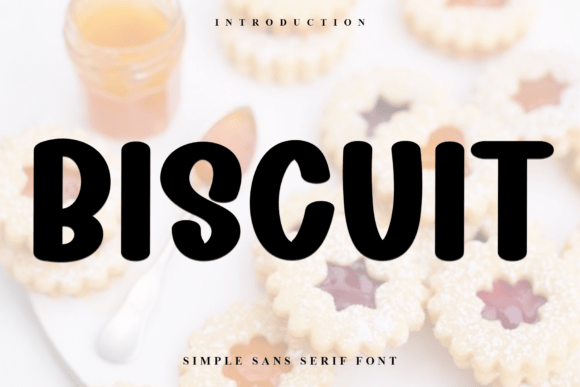
The Sweet Spot: Discovering the Charm of Biscuit Font
I still remember the design project that led me to fall in love with the Biscuit font. I was working on a branding project for a new bakery, and I needed a font that would evoke the warmth and comfort of freshly baked treats. After hours of scouring font libraries and trying out different options, I stumbled upon Biscuit – and it was love at first sight! ✨ The ultra-thick strokes and soft, rounded terminals instantly transported me to a world of cozy mornings and sweet indulgences.
An Honest Review: What I Love (and What to Watch Out For)
- ✨ Instant Impact: Biscuit’s bold, chunky design makes it perfect for headlines, titles, and statements that demand attention.
- ✅ Legibility: The font’s solid presence ensures that your text remains crystal clear, whether you’re using it for digital or print projects.
- 🌟 Versatility: Biscuit’s friendly, approachable vibe makes it suitable for a wide range of projects, from food packaging to children’s brand logos.
The Not-So-Perfect Bits
While Biscuit is an amazing font, it’s not without its quirks. Here are a few things to keep in mind:
- 🤔 Overuse: Because Biscuit is so attention-grabbing, it’s easy to overuse it. Make sure to balance it with simpler fonts to avoid visual overload.
- ⚠️ Readability at Small Sizes: While Biscuit is generally legible, it can become a bit tricky to read at very small sizes. Use it for headlines and titles, or pair it with a complementary font for body text.
The Story Behind Biscuit: A Designer’s Inspiration
According to the font’s designers, Biscuit was inspired by the warmth and comfort of freshly baked treats. They wanted to create a font that would evoke the same feelings of coziness and approachability as a warm cookie straight from the oven. And, let’s be honest, who can resist the charm of a font that’s inspired by delicious baked goods? 🍰
Q: What makes Biscuit font so special?
A: Biscuit’s unique blend of ultra-thick strokes and soft, rounded terminals makes it a standout font that’s both bold and approachable.
Q: Is Biscuit suitable for digital and print projects?
A: Absolutely! Biscuit’s solid presence ensures maximum legibility across both digital and print platforms.
Q: Can I use Biscuit for children’s branding and logos?
A: Yes! Biscuit’s playful, friendly vibe makes it a great choice for children’s branding, logos, and educational materials.